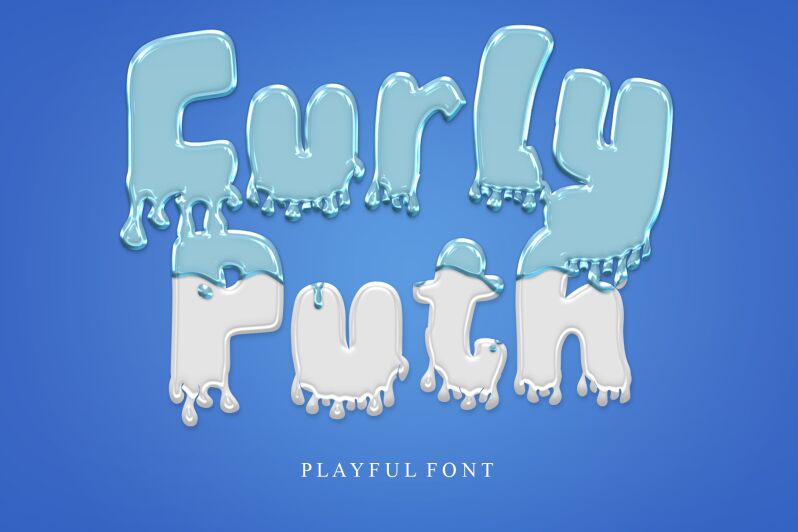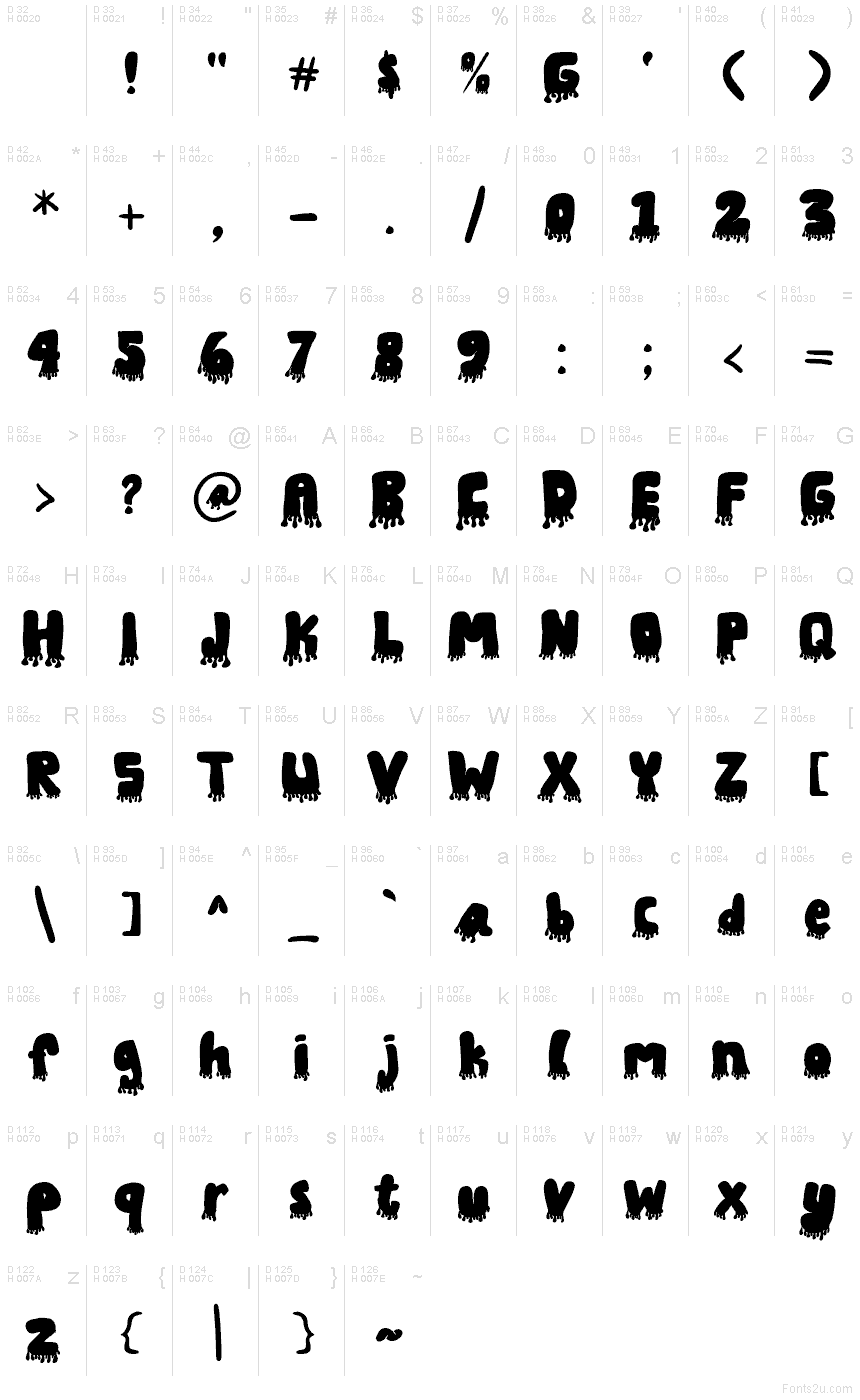
Curly Puth
Curly Puth font by Annisa Afni is a free decorative display typeface that oozes personality—literally. Each letter looks as if it’s melting or dripping in thick, inky blobs, giving your titles a gloopy, cartoon-horror vibe. The chunky shapes and uneven silhouettes feel playful rather than harsh, so you get spooky energy with a wink, not a scream.
Using Curly Puth, you can instantly set the mood for Halloween posters, slime-themed party invites, horror-comedy movie titles, kids’ spooky storybooks, haunted house signage, and eye-catching social graphics. This free font works best in large sizes where the drips can really show. Pair it with a clean, simple sans serif for body text to keep your layouts readable while Curly Puth does the loud, messy talking up top.